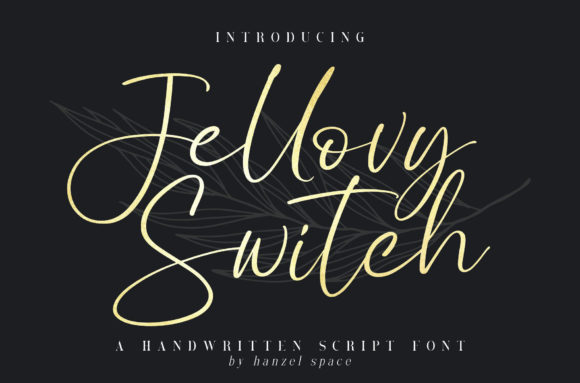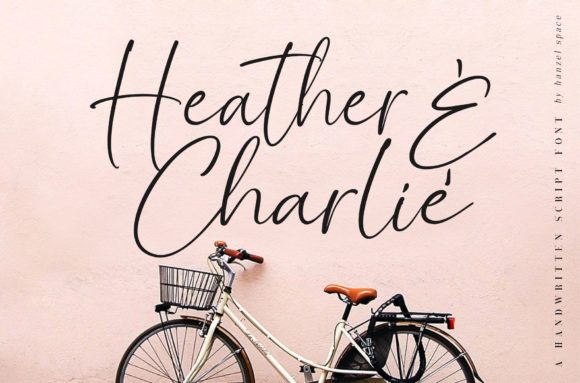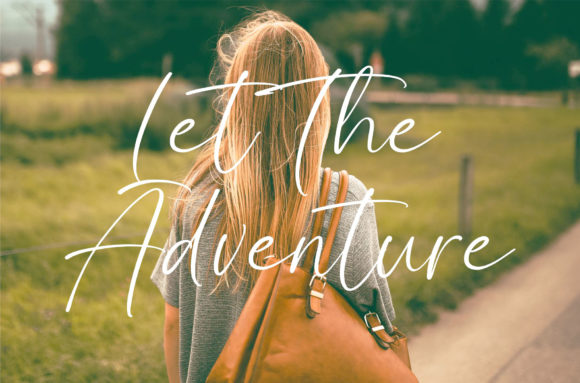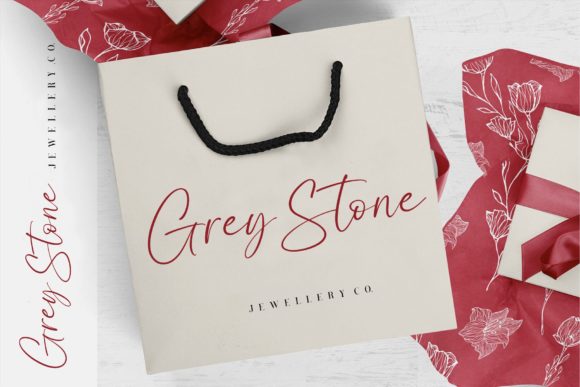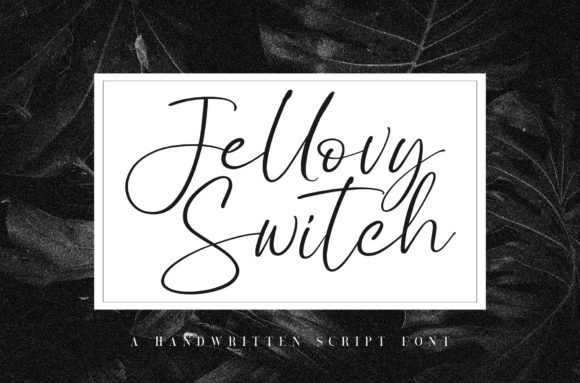
About Jellovy Switch Font
Jellovy Switch is a stylish and delicate handwritten font. It has a clean, thin and smooth vibe and it will be a hit for any design that you want to add it to.
It is suitable for any branding, product packaging, invitation, quote, t-shirt, label, poster, logo that you wish to develop.